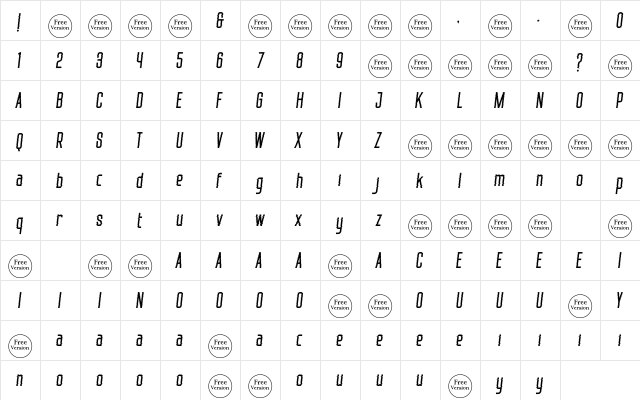
Uncracked Free Trial Regular Font Preview
Uncracked Free Trial Regular
Uncracked Free Trial Regular Font Details
Design Context for Uncracked Free Trial Typeface
Uncracked Free Trial takes a measured approach to typography — its balanced proportions and neutral character make it a reliable workhorse for both digital and print work.